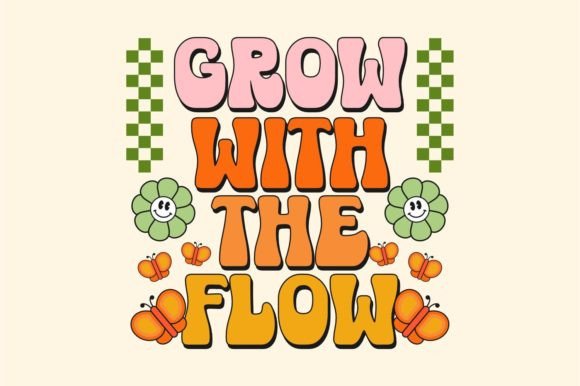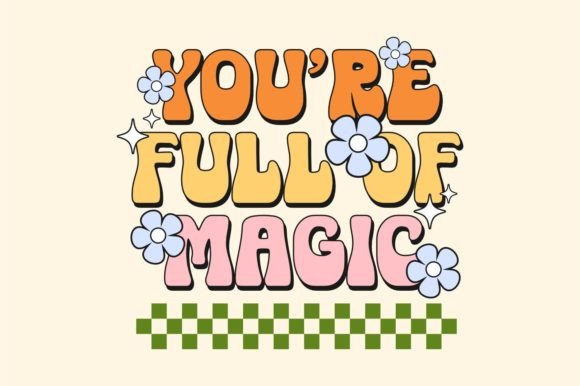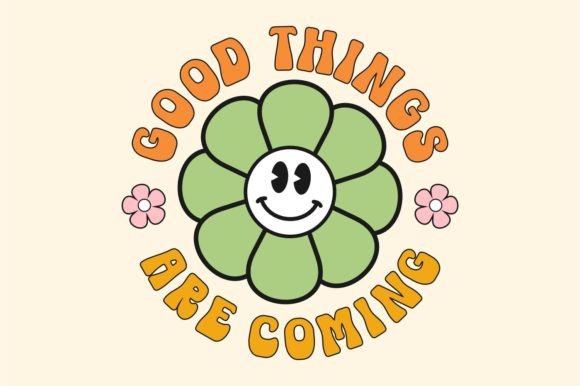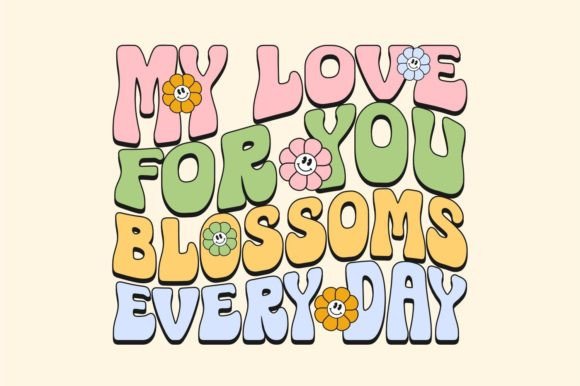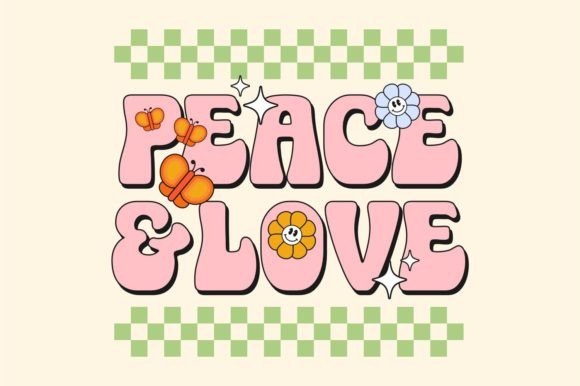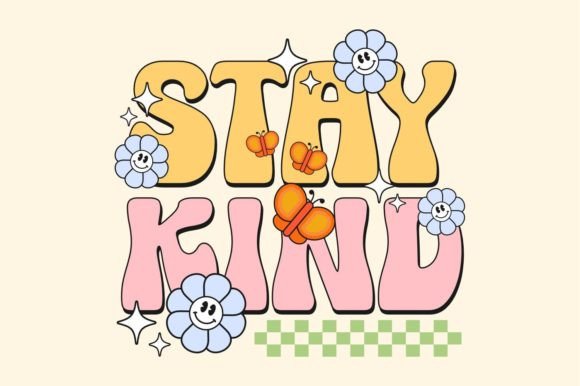
Getting Lost in the Groovy World of Magic Flower Font
Do you remember the moment when a font transports you to a different era? For me, it was when I stumbled upon the Magic Flower Font, and I felt like I was stepping into a psychedelic time machine. The whimsical letterforms, reminiscent of the flower power era, instantly caught my attention, and I couldn’t help but feel a sense of nostalgia wash over me.
As a designer, I know how valuable it is to have a reliable design resource that can elevate our creative projects. The Magic Flower Font is one such gem that can add a playful and carefree spirit to any design. With its thick and thin strokes, this font exudes an organic and handcrafted feel that’s perfect for designs that require a high-quality, unique touch.
Key Features of Magic Flower Font
- High-quality design resource ideal for creative projects, offering a unique and whimsical touch.
- Unique characteristics include intricate floral patterns, delicate petal details, and a touch of magic, making it perfect for fantasy and whimsical-themed projects.
Honest Review: Magic Flower Font
I recently stumbled upon the Magic Flower Font, a free design resource that’s perfect for creative projects. At first glance, the font is visually stunning, with intricate details that make it stand out. ✨ The transparent background also makes it easy to customize and integrate with any design.
Here are some of the things that work well with the Magic Flower Font:
- Unique and intricate details that set it apart from other fonts
- May not be suitable for large blocks of text due to its ornate design
- Could be difficult to read for those with vision impairments
Overall, I’m impressed with the Magic Flower Font. It’s a great addition to any designer’s toolkit, and the free download makes it a valuable resource. With a little creativity, this font can add a touch of magic to any design project.
To get the most out of the Magic Flower Font, try combining it with other design elements, such as graphics and images, to create a visually appealing design. You can also experiment with different font sizes and styles to create a unique and eye-catching look.
The Magic Flower Font is perfect for a variety of creative projects, including greeting cards, invitations, and social media graphics. It is also a great choice for designers who want to add a touch of whimsy and elegance to their designs.
Is the Magic Flower Font a design resource suitable for digital and print projects?
Yes, the Magic Flower Font is a versatile design resource suitable for both digital and print projects. Its high-quality design and transparent background make it an ideal choice for web design, social media graphics, and print materials such as business cards and brochures.